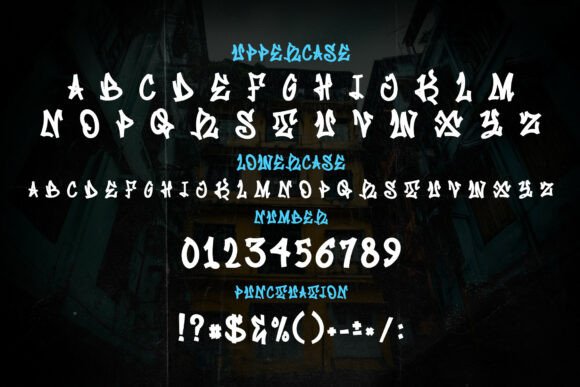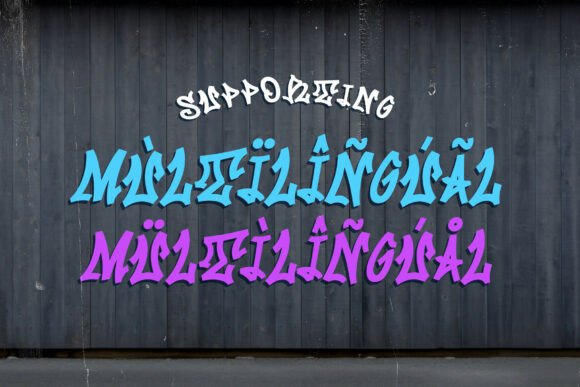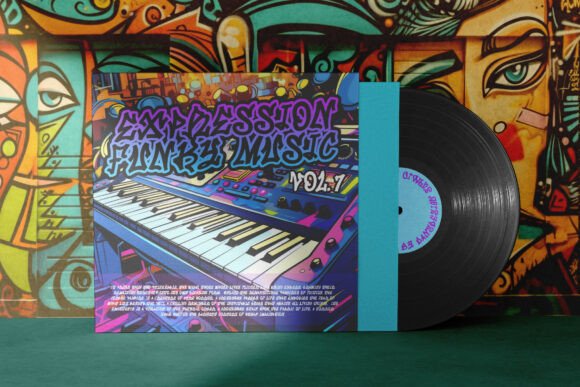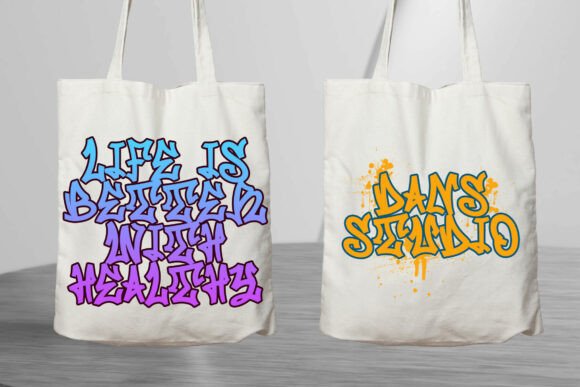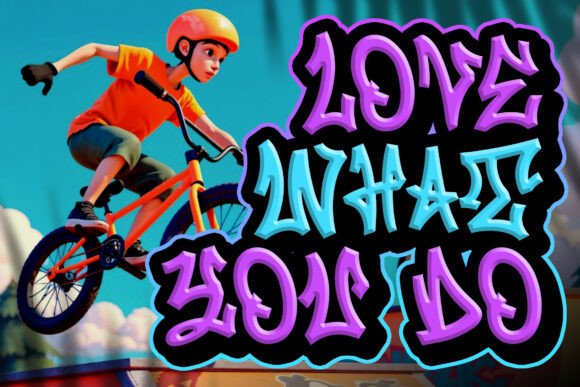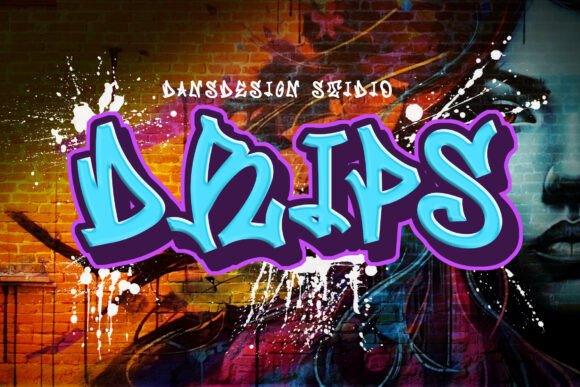
Unleash Your Creativity with Decay Subversion Font
Are you a designer or crafter looking for a bold and rebellious font to add some edge to your visuals? Look no further than Decay Subversion, a marker brush graffiti font that embodies the raw energy and modern street-style aesthetics of urban creativity. Inspired by real street tagging and freestyle graffiti, this font is perfect for designs that break the rules and grab attention.
The Inspiration Behind Decay Subversion
Decay Subversion is more than just a font – it’s an attitude. Born from the streets, this font captures the essence of urban art, with its chaotic brush strokes and rough marker texture. The result is a font that exudes hand-drawn aggression and a sense of rebellion, making it perfect for designers who want to push the boundaries of conventional typography.
Key Features of Decay Subversion
- Bold and Rebellious: Decay Subversion is a statement font that demands attention. Its bold, chunky letters are perfect for headlines, posters, and logos that need to make an impact.
- Marker Brush Graffiti: The font’s marker brush graffiti style gives it a raw, hand-drawn feel that’s perfect for urban-inspired designs.
- Chaotic Brush Strokes: The font’s chaotic brush strokes add a sense of energy and movement to your designs, making them perfect for dynamic and expressive visuals.
- Rough Marker Texture: The rough marker texture gives Decay Subversion a tactile, organic feel that’s perfect for designs that need a bit of grit and attitude.
Perfect for Urban-Inspired Designs
Decay Subversion is perfect for designers who want to create urban-inspired designs that reflect the energy and creativity of the city streets. Whether you’re designing posters, logos, or digital media, this font will add a touch of rebelliousness and attitude to your work.
Use Cases for Decay Subversion
- Posters and Flyers: Use Decay Subversion to create eye-catching posters and flyers that grab attention and make a statement.
- Logos and Branding: The font’s bold, chunky letters make it perfect for logos and branding that need to stand out from the crowd.
- Digital Media: Use Decay Subversion to add a touch of urban grit to your digital media, including social media graphics, videos, and website headers.
- Streetwear and Fashion: The font’s urban-inspired style makes it perfect for streetwear and fashion brands that want to add a touch of edginess to their designs.
Tips for Using Decay Subversion
- Experiment with Colors: Decay Subversion looks great in bold, bright colors that reflect the energy and creativity of urban art.
- Play with Texture: The font’s rough marker texture is a key part of its charm, so experiment with different textures and overlays to add depth and interest to your designs.
- Mix and Match: Don’t be afraid to mix and match Decay Subversion with other fonts and design elements to create unique and dynamic visuals.
Decay Subversion is a bold and rebellious font that’s perfect for designers and crafters who want to add a touch of urban grit to their work. With its chaotic brush strokes, rough marker texture, and modern street-style aesthetics, this font is sure to make a statement. So why settle for ordinary typography when you can unleash your creativity with Decay Subversion?